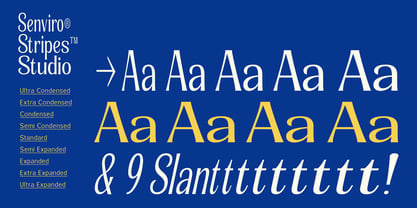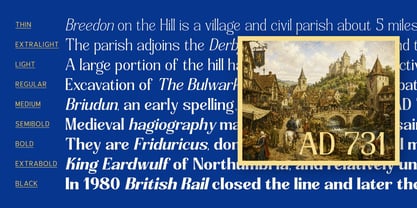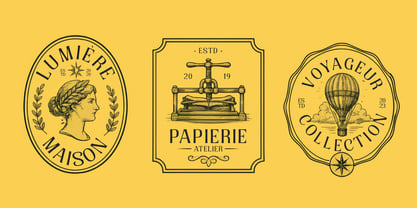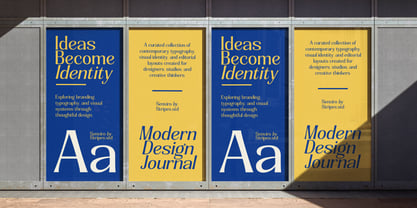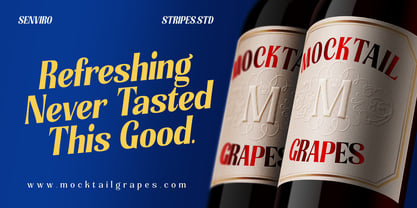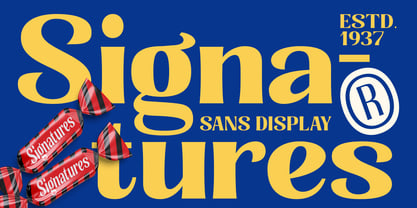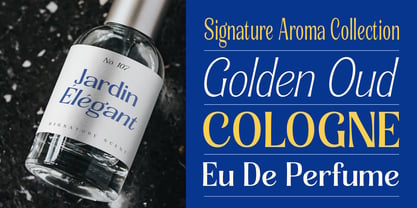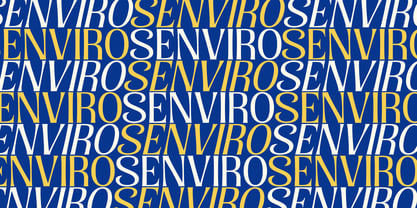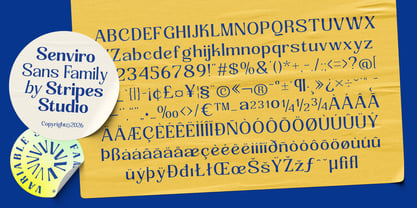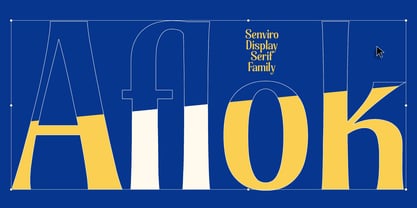
Senviro
by Stripes Studio
The Senviro Font Family was designed by Yur Lis and published by Stripes Studio. Senviro contains 85 styles. More about this family
Senviro is a clean and modern sans serif typeface designed with simplicity, versatility, and contemporary aesthetics in mind. Its balanced proportions and smooth letterforms create a clear and elegant appearance, making it suitable for both digital and print applications.
With its minimalist character and excellent readability, Senviro works beautifully for branding, logos, headlines, posters, packaging, websites, and editorial designs. The font combines a professional feel with a subtle modern personality, allowing it to adapt effortlessly to a wide range of creative projects.
Senviro — Simple, modern, and made to communicate.
Designers: Yur Lis
Foundry: Stripes Studio